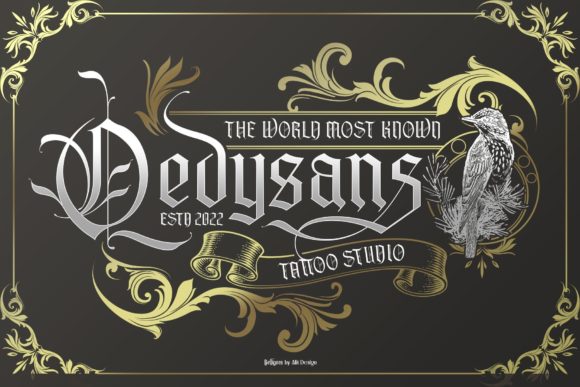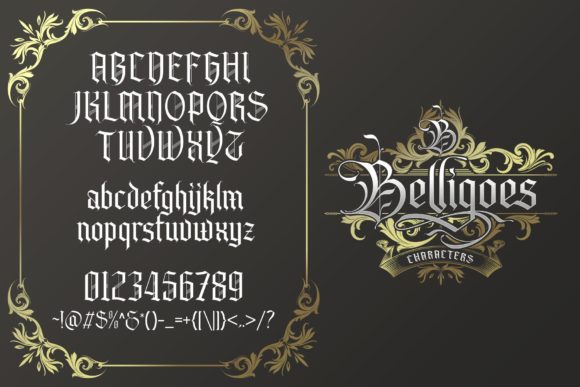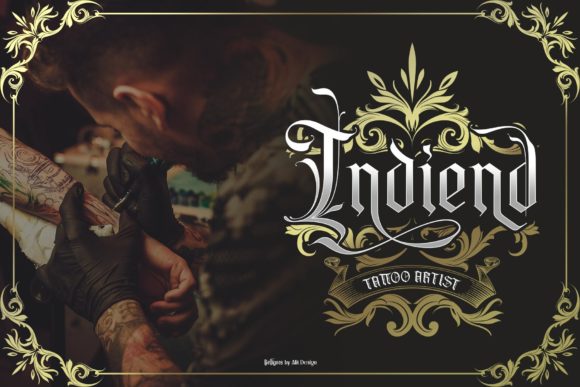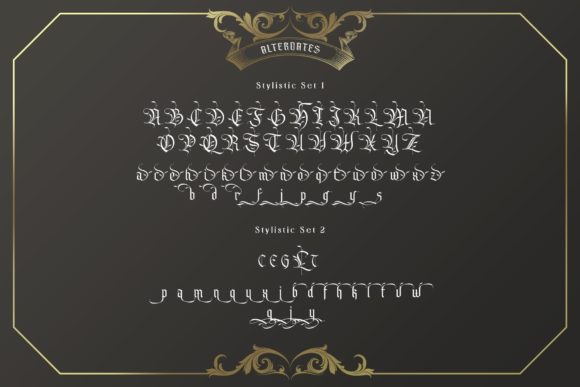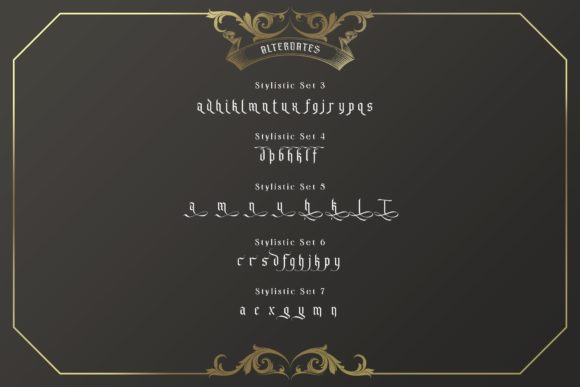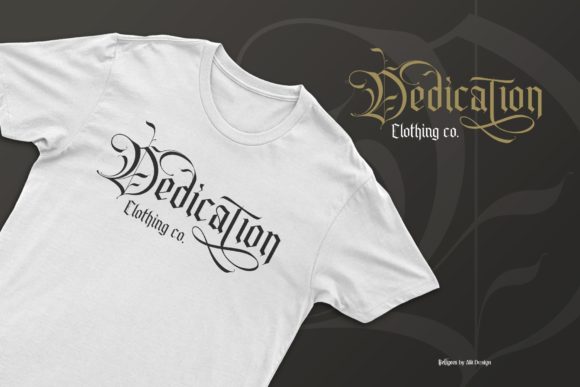
Belligoes Font: The Assertive and Distinct Blackletter Font for Designers and Crafters
In the world of typography, blackletter fonts have always been a popular choice for designers and crafters looking to add a touch of elegance and sophistication to their projects. One such font that has been making waves in the design community is Belligoes, an assertive and distinct blackletter font that is PUA encoded for easy access to all glyphs and swashes. In this article, we’ll take a closer look at Belligoes and what makes it a must-have font for designers and crafters.
What is Belligoes Font?
Belligoes is a modern blackletter font that is designed to make a statement. With its bold and assertive lines, this font is perfect for creating eye-catching headlines, titles, and logos. The font is PUA (Private Use Area) encoded, which means that it includes a range of additional glyphs and swashes that can be accessed with ease. This makes Belligoes a highly versatile font that can be used for a wide range of design projects, from wedding invitations and greeting cards to posters and packaging.
Key Features of Belligoes Font
So, what sets Belligoes apart from other blackletter fonts? Here are some of its key features:
- PUA Encoding: As mentioned earlier, Belligoes is PUA encoded, which means that it includes a range of additional glyphs and swashes that can be accessed with ease. This makes it easy to create unique and customized designs.
- Assertive and Distinct: Belligoes is a bold and assertive font that is designed to make a statement. Its distinct lines and curves make it perfect for creating eye-catching headlines and titles.
- Highly Versatile: Belligoes can be used for a wide range of design projects, from wedding invitations and greeting cards to posters and packaging.
- Easy to Use: Despite its complex design, Belligoes is easy to use and can be accessed by designers of all skill levels.
Uses of Belligoes Font
Belligoes is a highly versatile font that can be used for a wide range of design projects. Here are some of the most popular uses of this font:
- Wedding Invitations: Belligoes is a popular choice for wedding invitations, thanks to its elegant and sophisticated design.
- Greeting Cards: The font’s bold and assertive lines make it perfect for creating eye-catching greeting cards for special occasions.
- Posters and Flyers: Belligoes can be used to create eye-catching posters and flyers that are sure to grab attention.
- Packaging: The font’s unique design makes it perfect for use on packaging, such as labels and product tags.
Tips for Using Belligoes Font
Here are some tips for using Belligoes font in your design projects:
- Use it Sparingly: Belligoes is a bold font, so it’s best to use it sparingly to avoid overwhelming your design.
- Pair it with Other Fonts: Belligoes can be paired with other fonts to create a unique and interesting design.
- Experiment with Glyphs and Swashes: The font’s PUA encoding means that you can access a range of additional glyphs and swashes. Experiment with these to create a unique design.
In conclusion, Belligoes is an assertive and distinct blackletter font that is perfect for designers and crafters looking to add a touch of elegance and sophistication to their projects. Its PUA encoding makes it easy to access all glyphs and swashes, and its highly versatile design means that it can be used for a wide range of design projects. Whether you’re creating wedding invitations, greeting cards, posters, or packaging, Belligoes is a must-have font that is sure to make a statement.